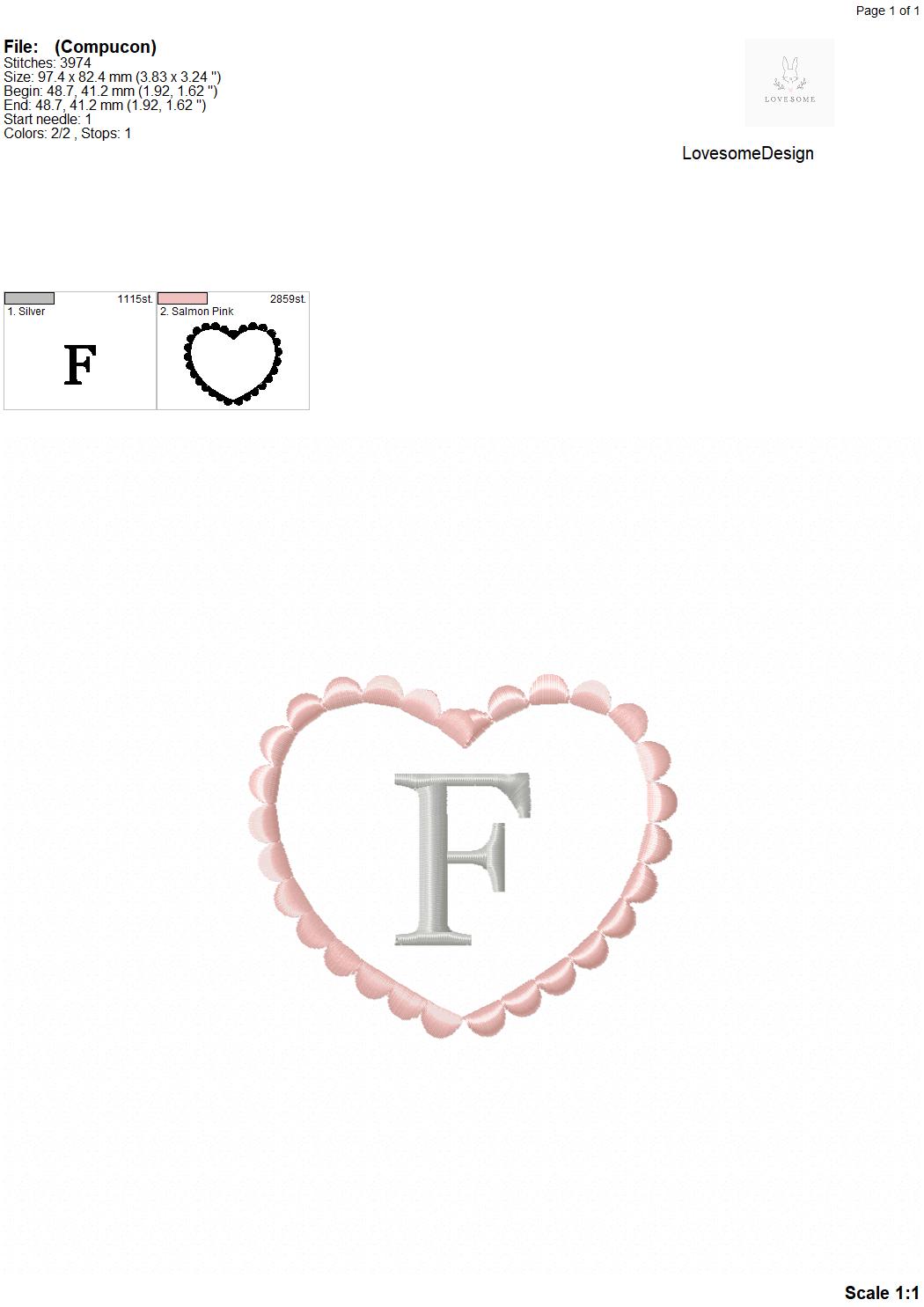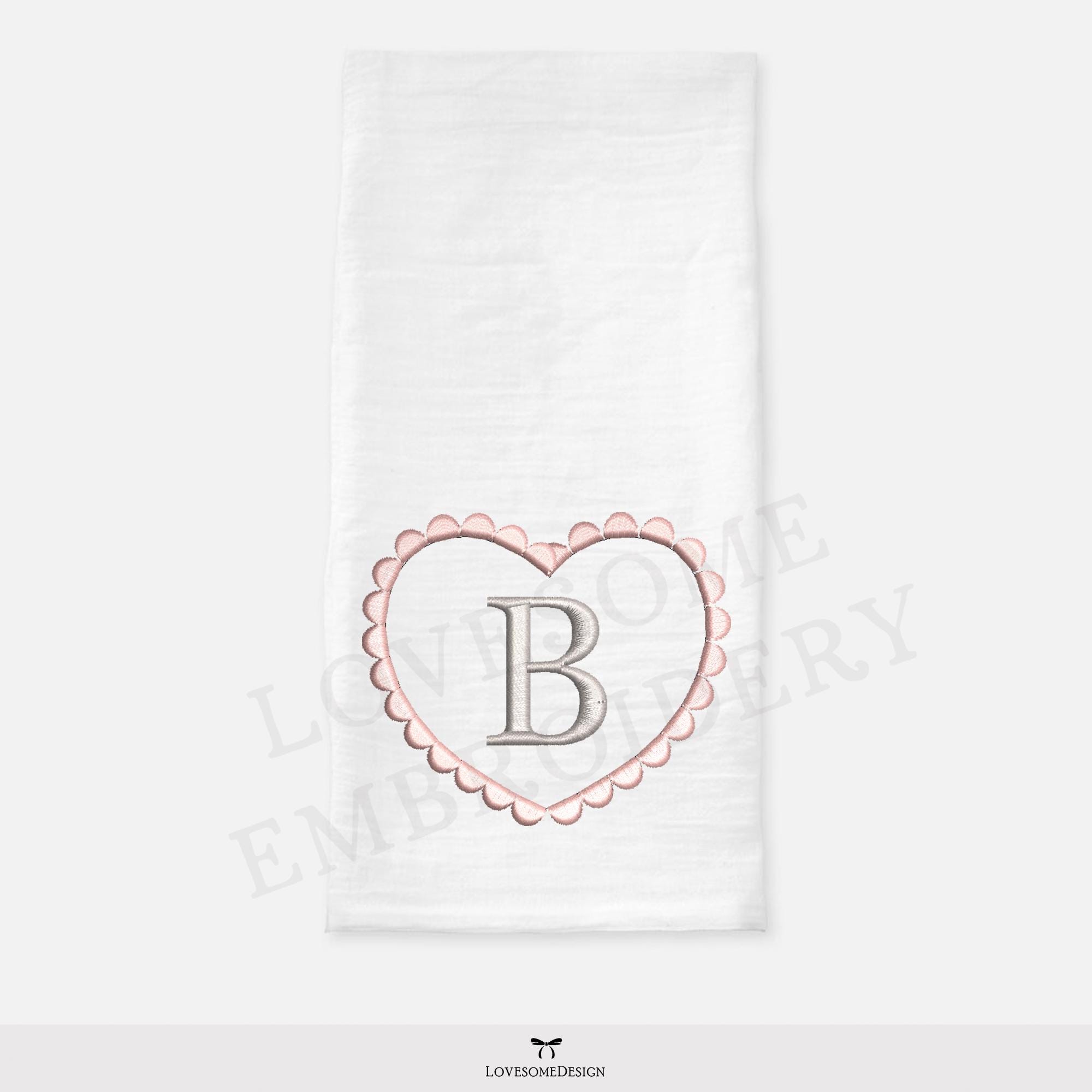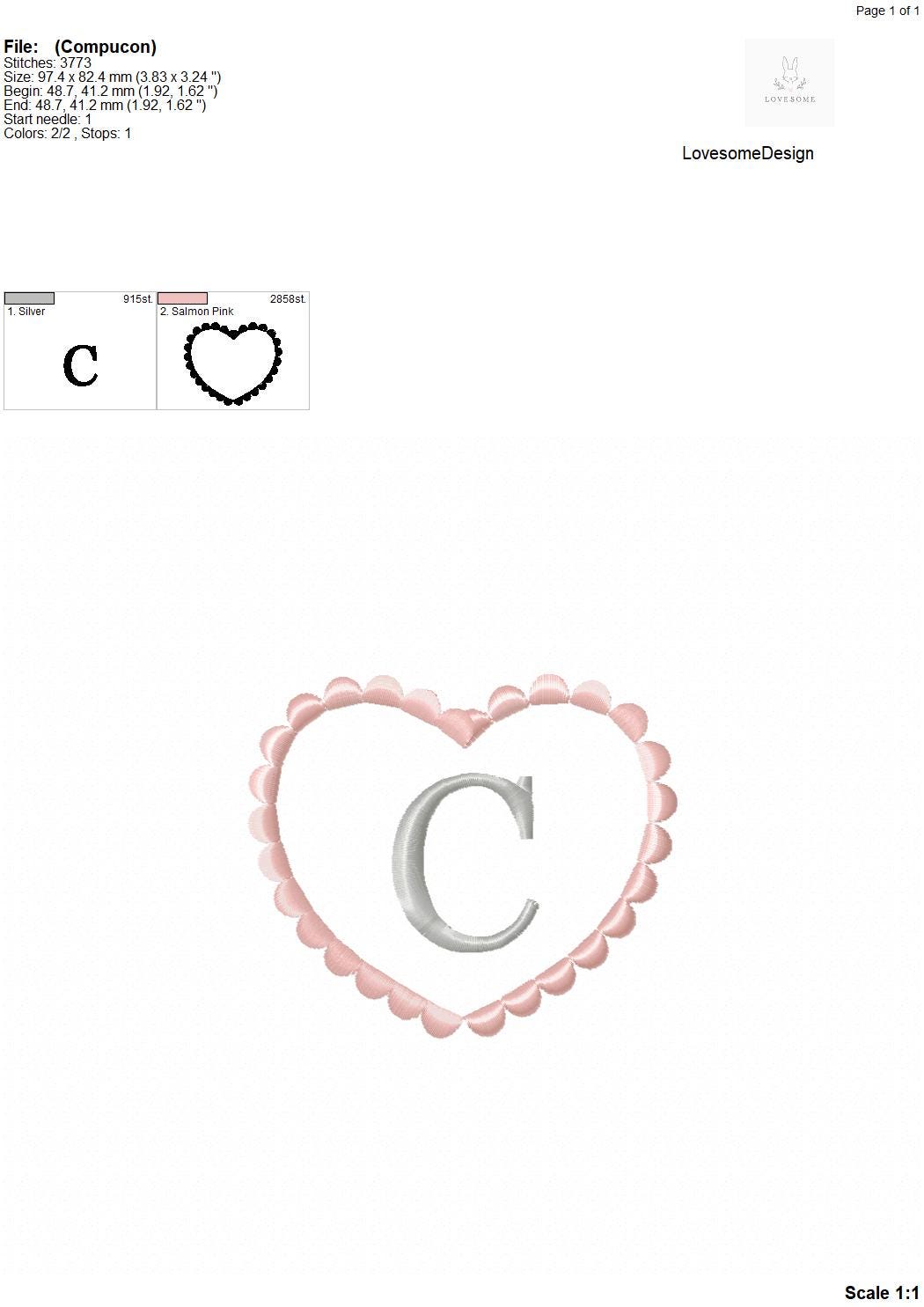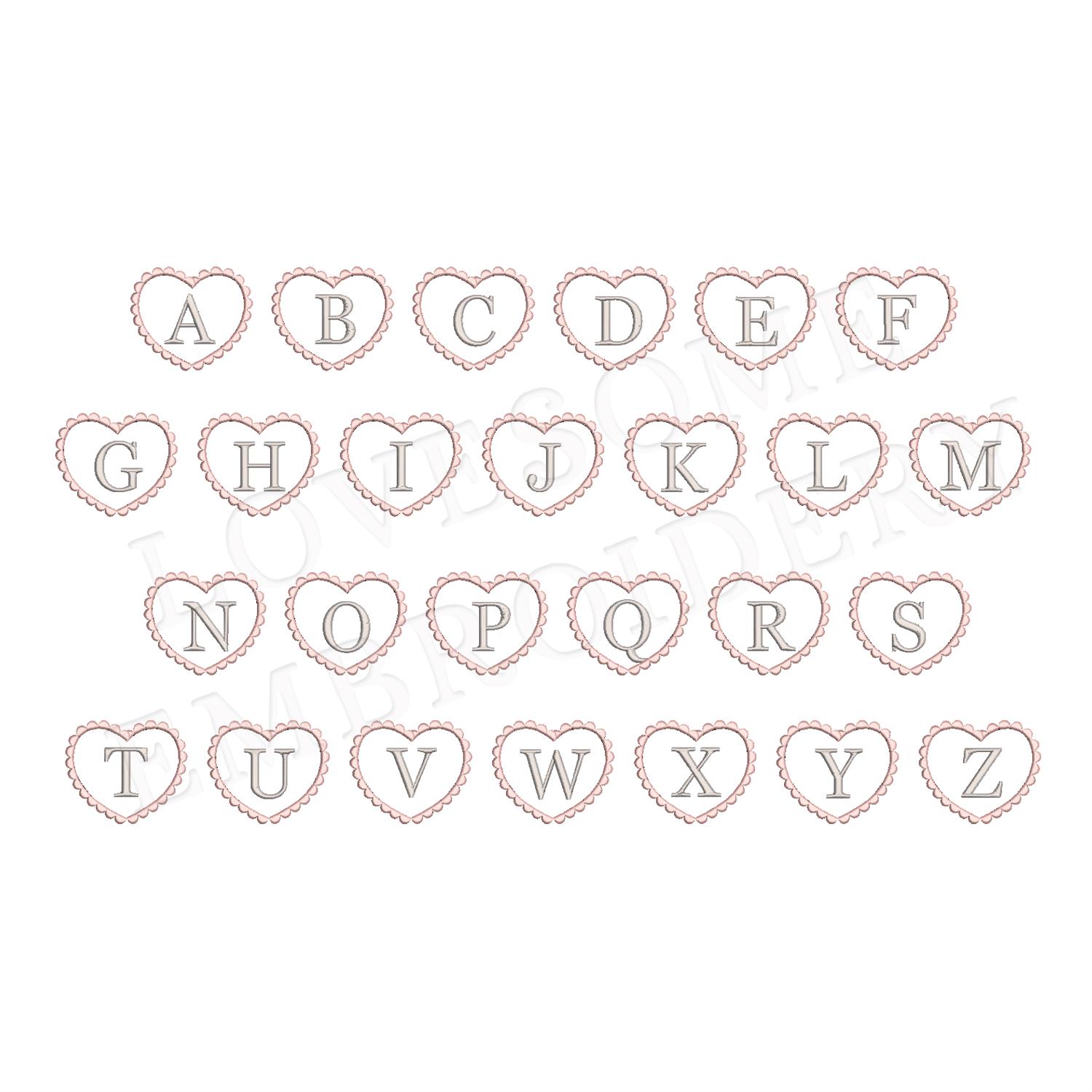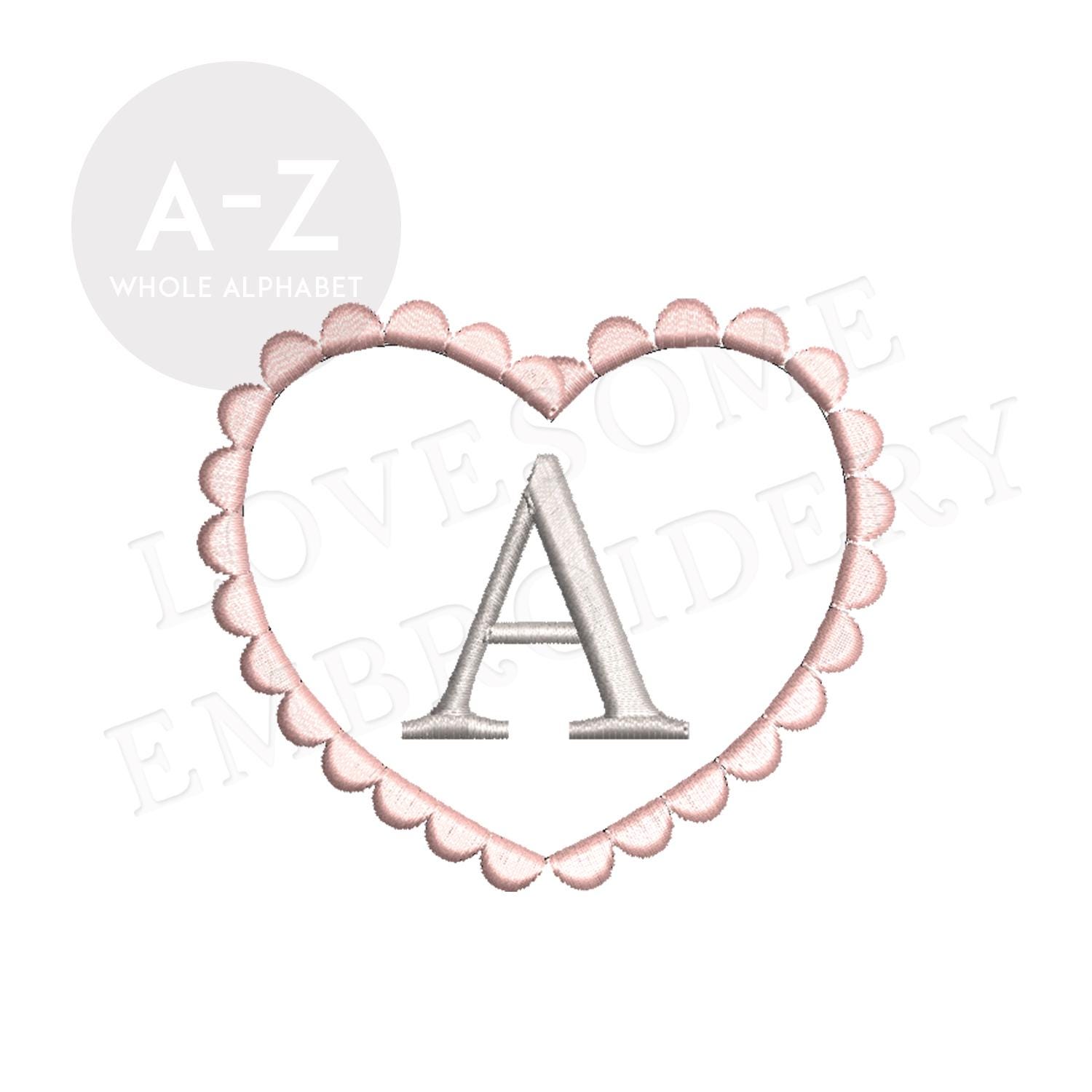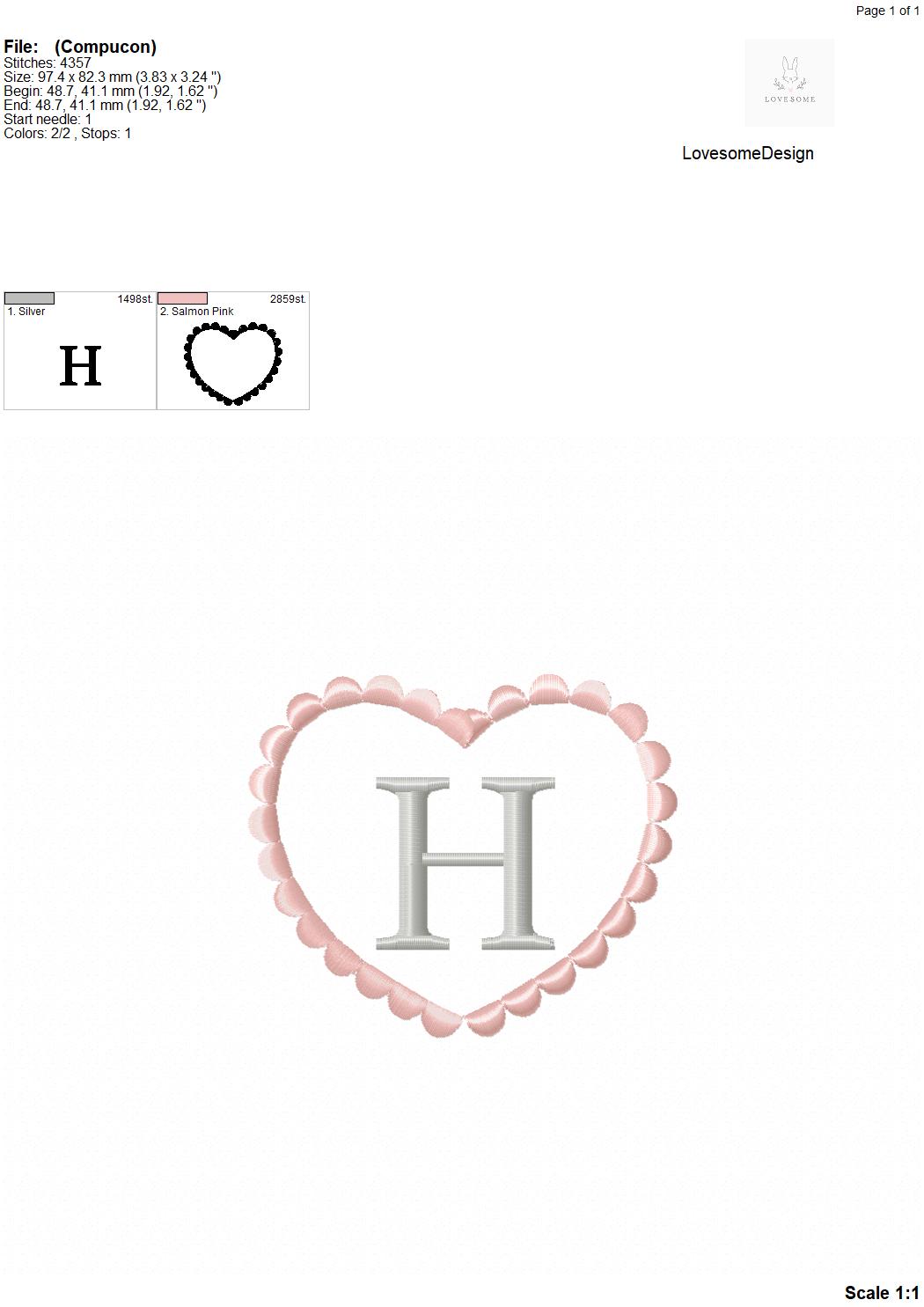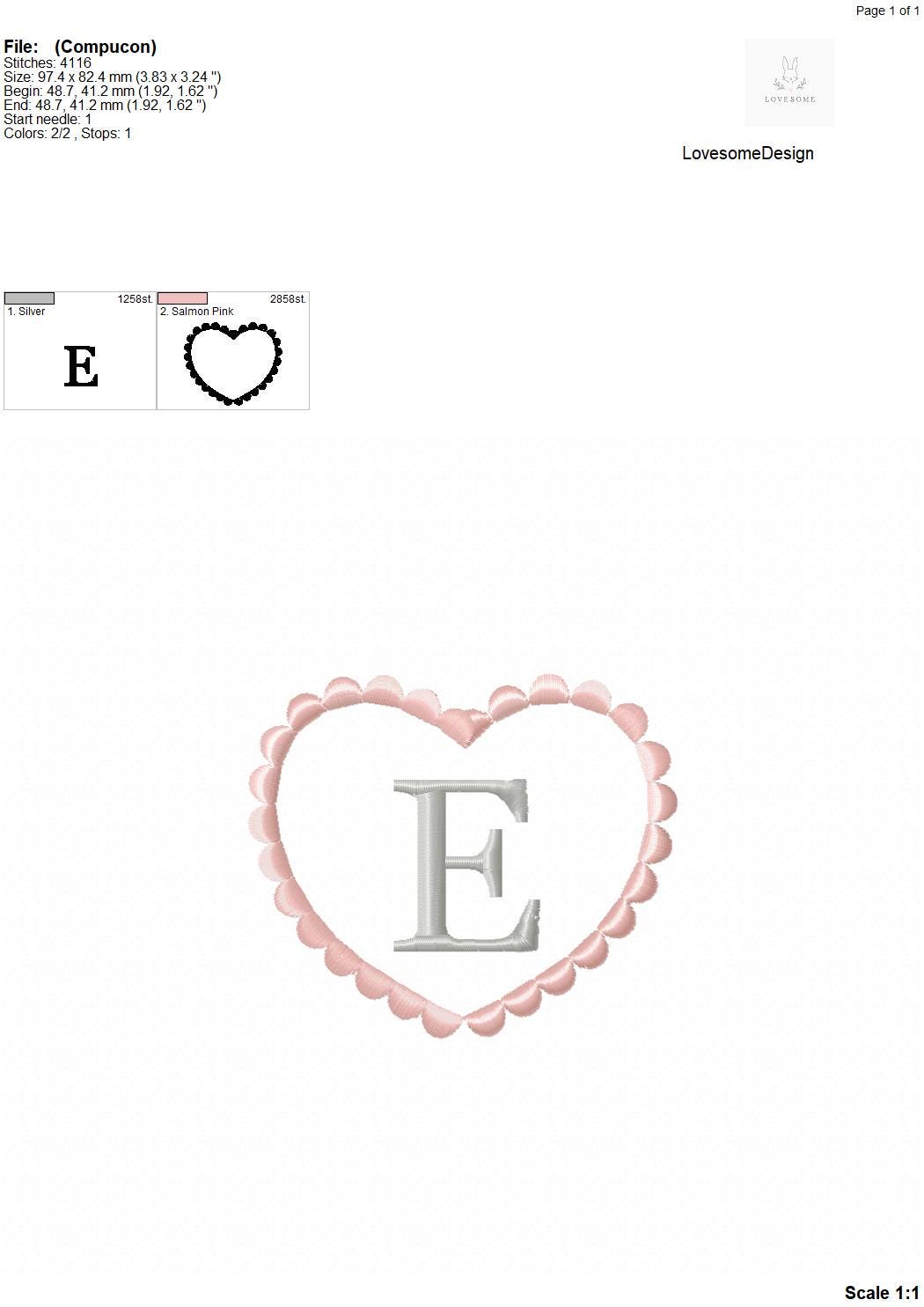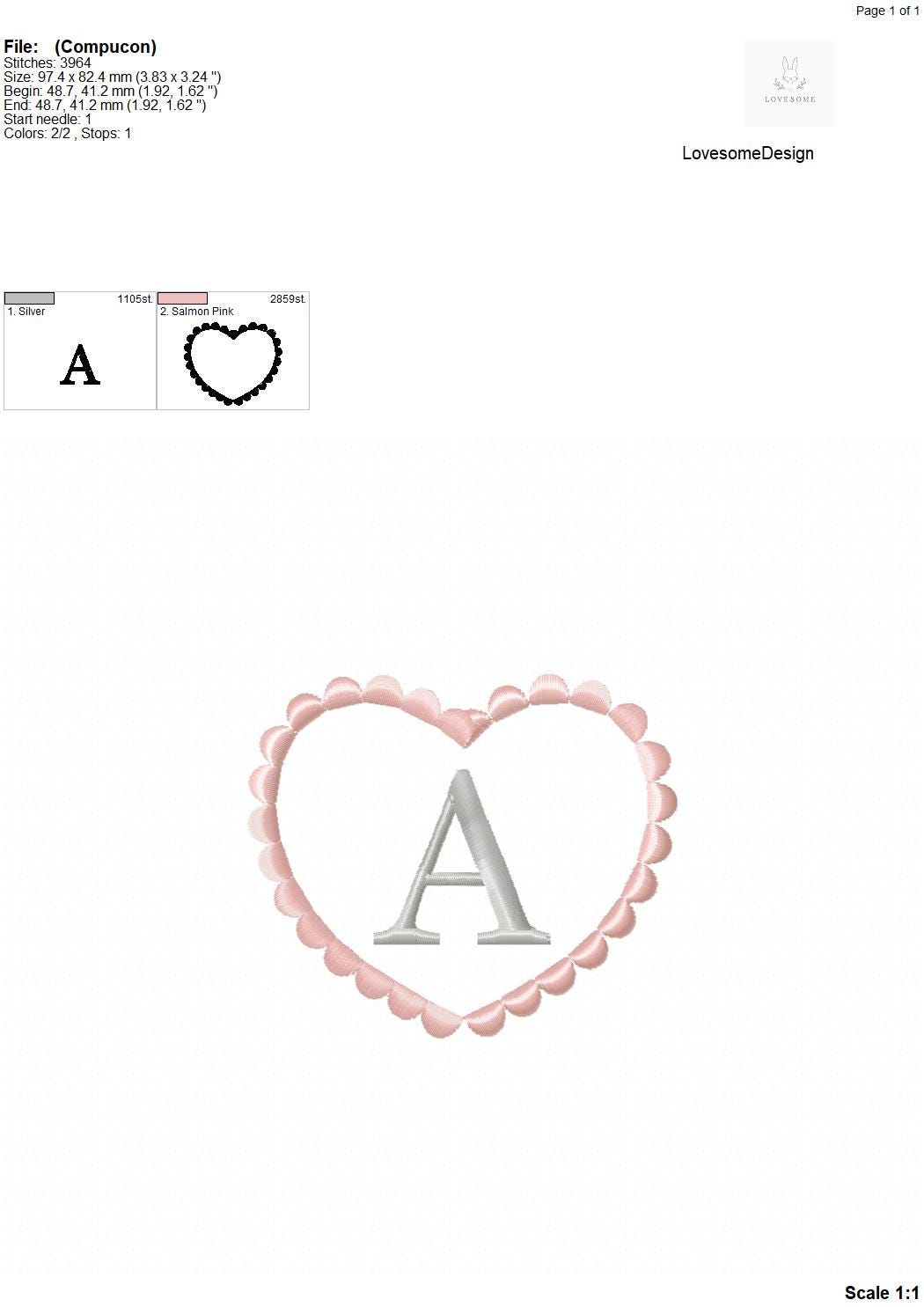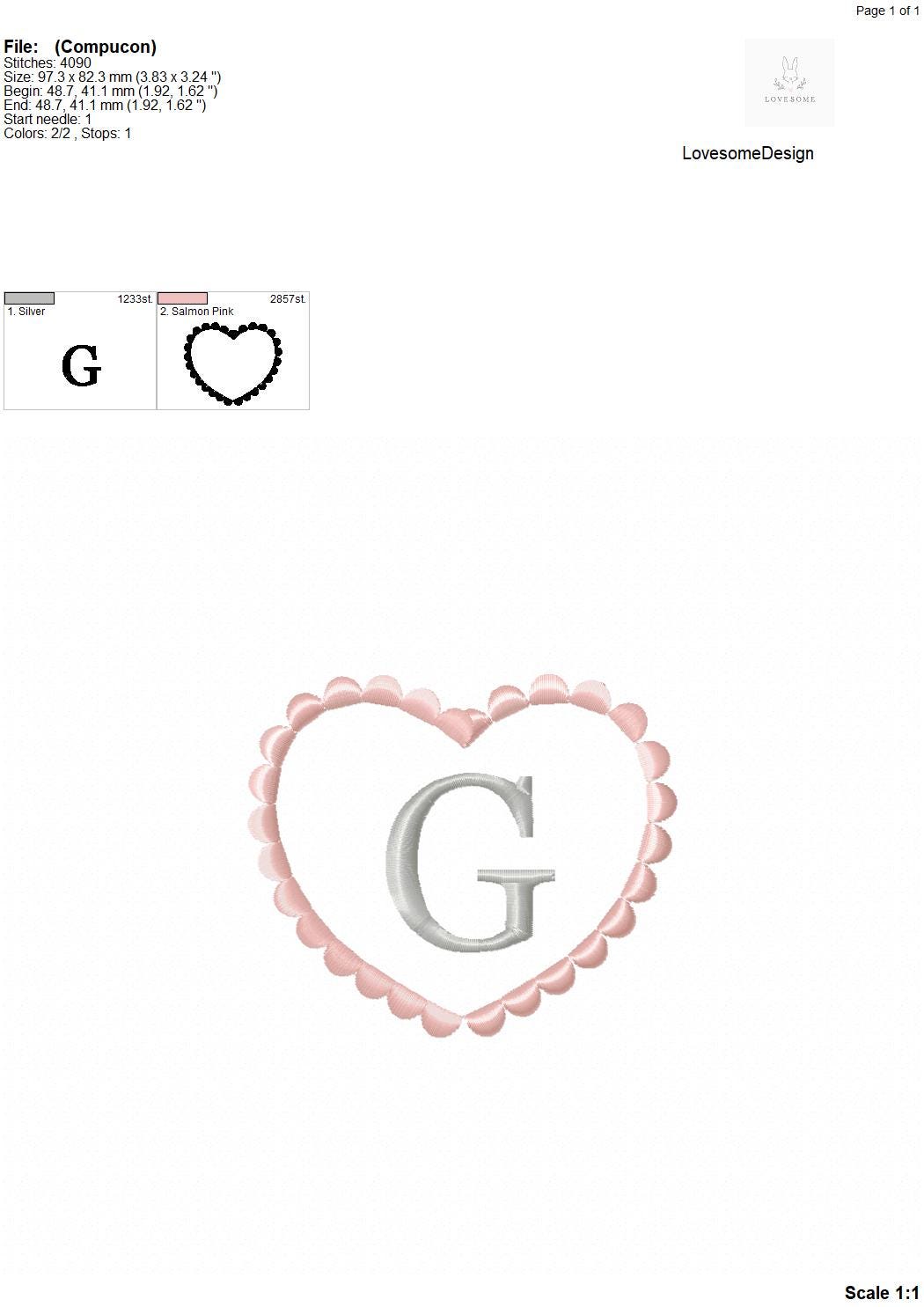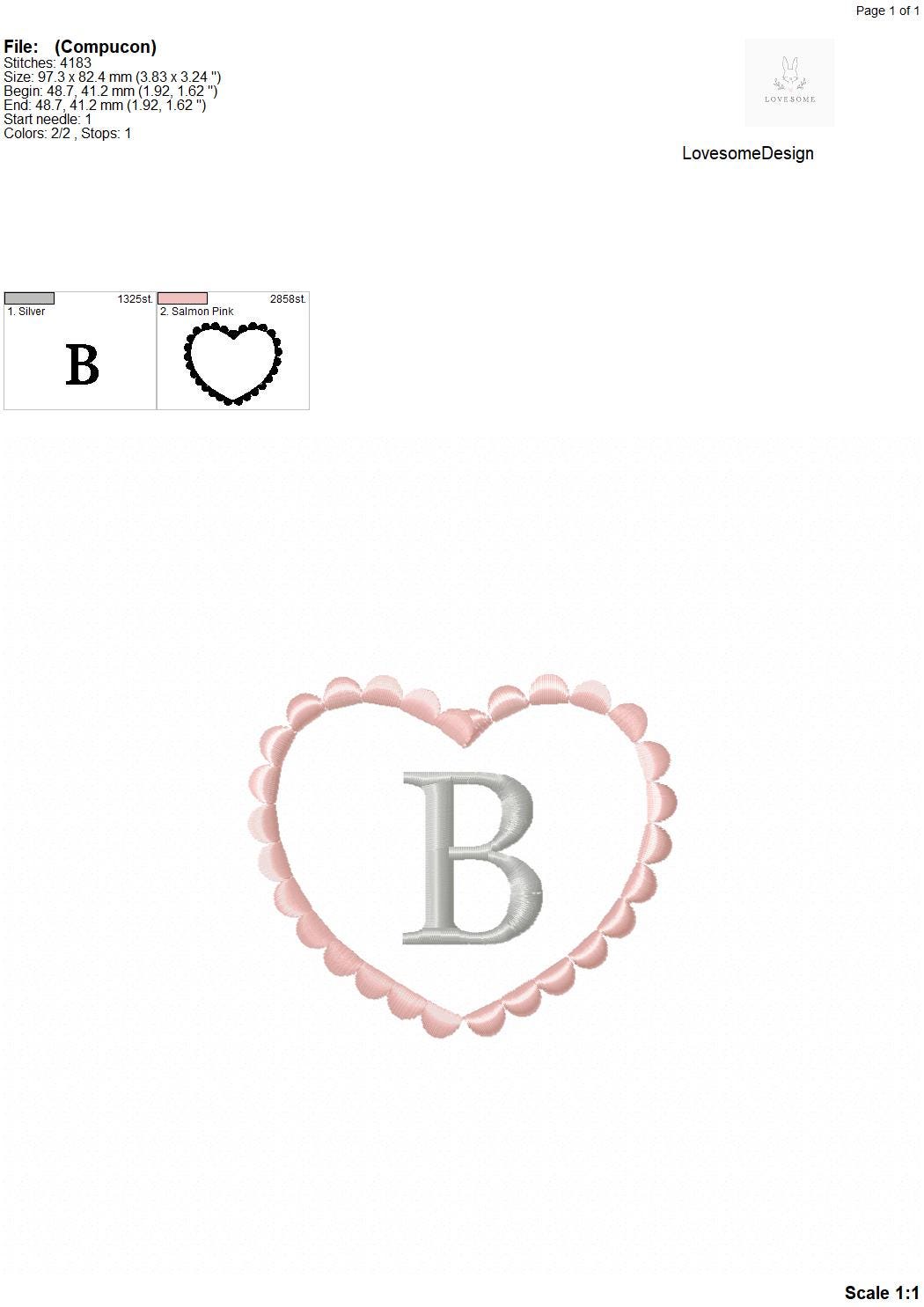
Scalloped Heart Monogram Font 4inch A-Z Valentines Day Wedding Serif Font Machine Embroidery Font Digital Download | Lovesome Design
This listing features a machine embroidery font set which includes embroidery files of 26 uppercase serif letters in a beautiful scalloped heart design in 4inch size. (For the whole set, pls see the listing images.)